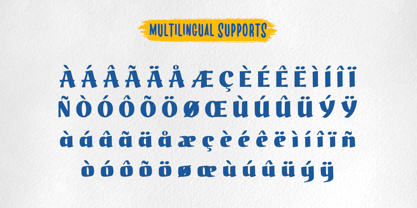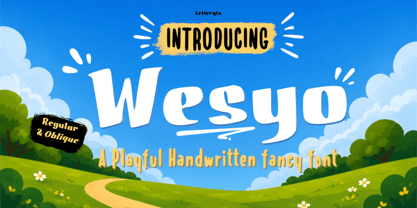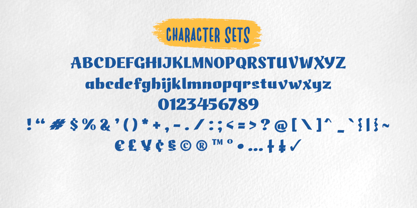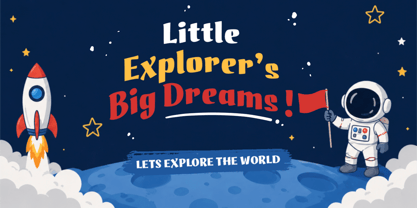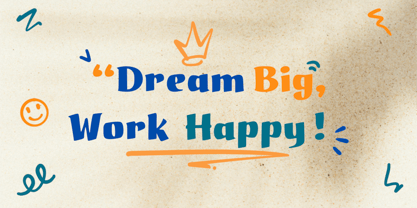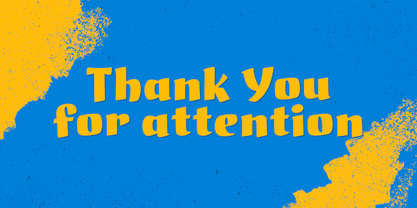
Wesyo – Playful Handwritten Display Font
Wesyo is a fun and expressive handwritten display font crafted to bring a cheerful and organic personality into your designs. Featuring bold curves, bouncy shapes, and slightly quirky letterforms, Wesyo delivers a warm handcrafted feel while maintaining strong readability and visual charm.
Designed with a playful handmade touch, Wesyo works perfectly for branding, children’s projects, posters, packaging, social media graphics, merchandise, book covers, stickers, invitations, and creative headlines. Its natural imperfections and smooth flowing characters create an authentic handwritten appearance that feels friendly, energetic, and artistic.
Wesyo leans more toward a casual handwritten display style rather than a creepy style. However, with the right color palette and design composition, it can also adapt well to spooky, Halloween, or quirky themed projects thanks to its uneven and whimsical character shapes.
Whether you want to create eye-catching branding or playful typography artwork, Wesyo adds creativity, fun, and handcrafted authenticity to every project.
✨ Features:
✔ Handwritten playful display style
✔ Organic and handcrafted letterforms
✔ Strong and bold visual appearance
✔ Smooth curves with bouncy personality
✔ Perfect for logos, posters, packaging, and social media
✔ Great for kids, fun, quirky, and casual themes
✔ Suitable for spooky or creepy playful concepts
✔ Multilingual support
✔ Style Regular & Oblique